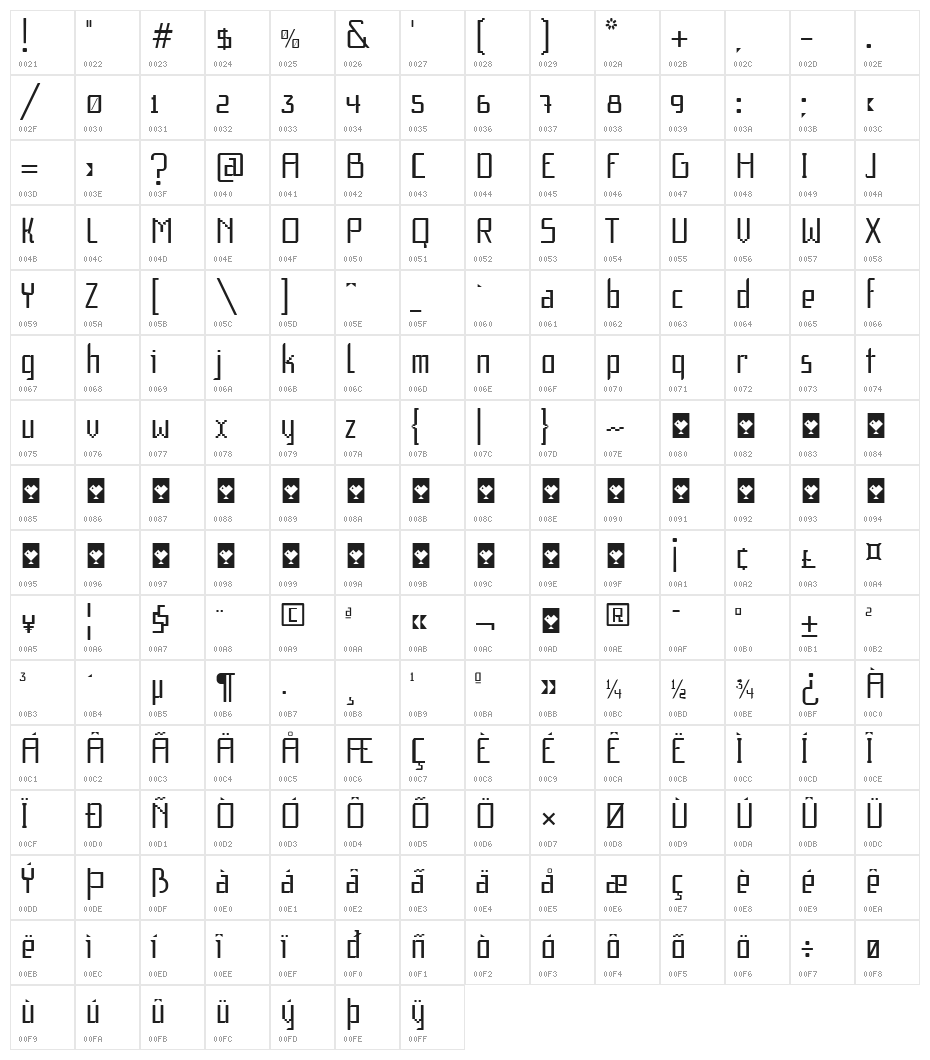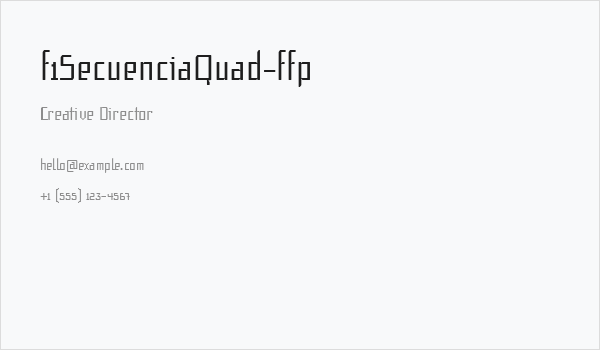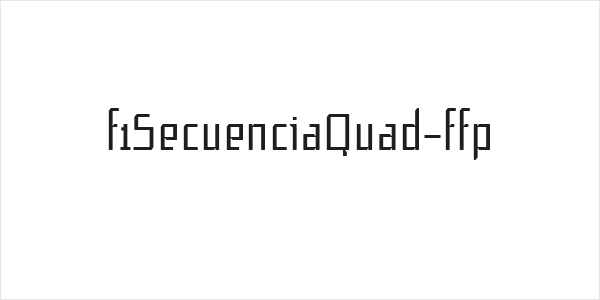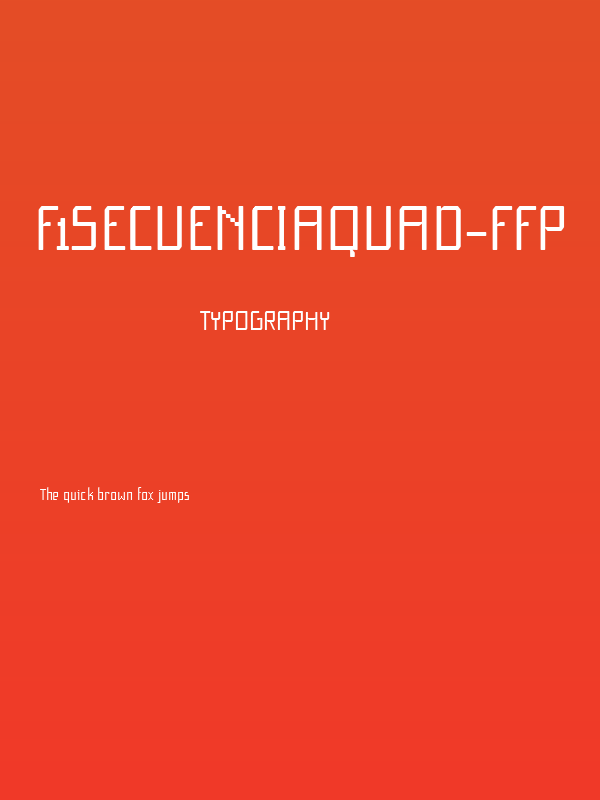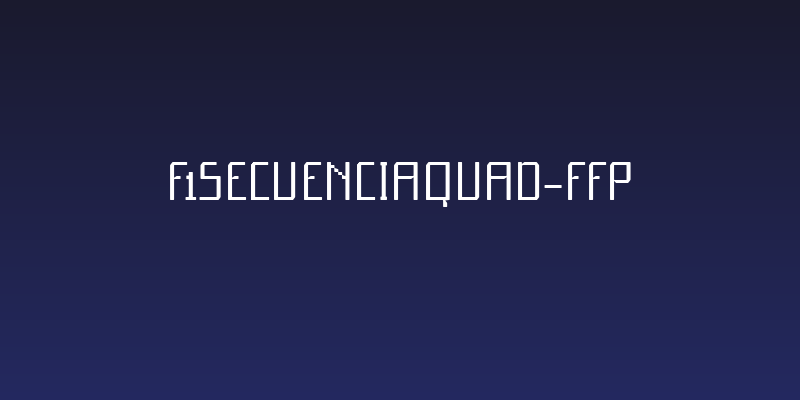
f1SecuenciaQuad-ffp Font
f1SecuenciaQuad-ffp Description
This font features a geometric, monospaced design with a modern and digital aesthetic. The characters are constructed with straight lines and right angles, giving them a blocky and structured appearance. The uppercase and lowercase letters maintain a consistent height and width, contributing to the uniformity of the typeface. The numerals and special characters follow the same design principles, ensuring a cohesive look across all glyphs. The font's simplicity and clarity make it suitable for digital displays and technical applications, where readability and precision are essential.
| Use Case | Digital displays, Coding, Technical documentation |
| Proposed Projects | Ideal for coding environments, digital interfaces, technical documentation, and retro-themed designs. |